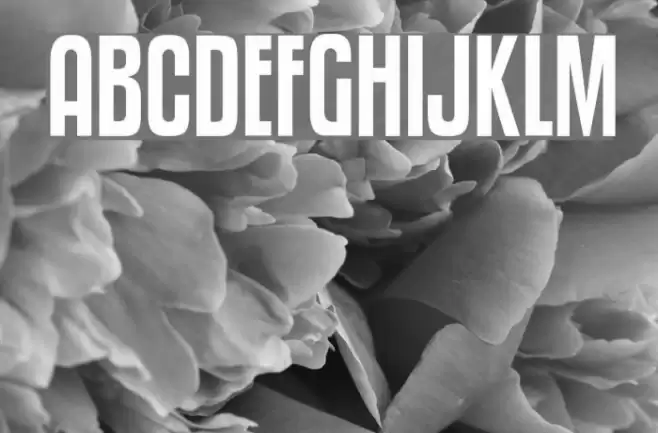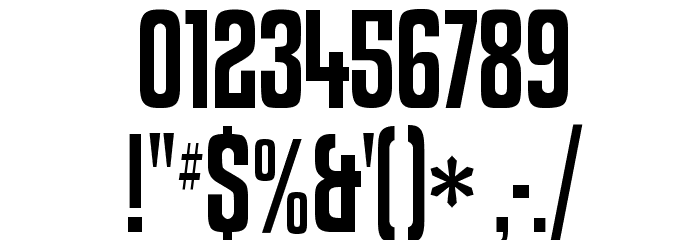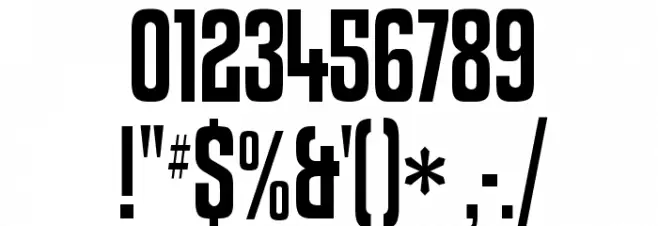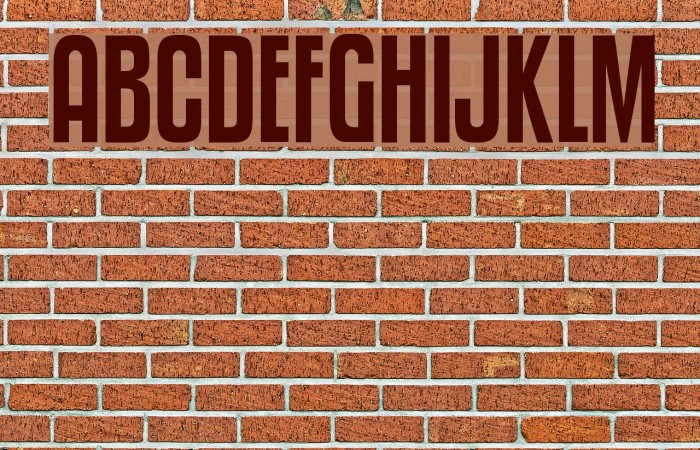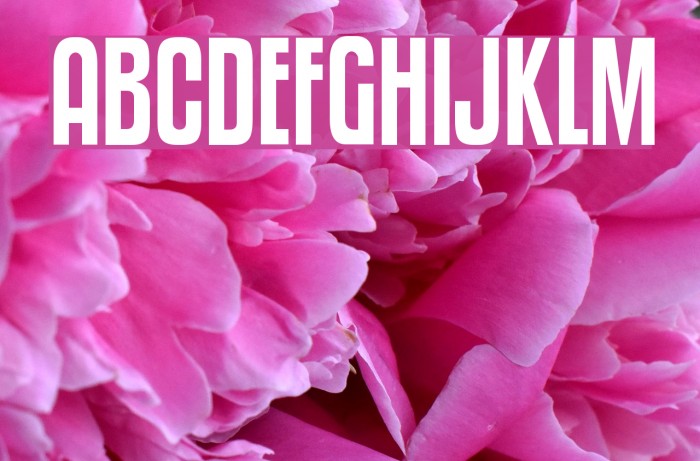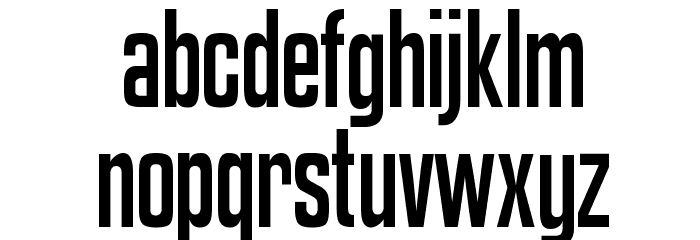
Kenyan Coffee Font
Kenyan Coffee Description
This font features a bold and impactful design with tall, narrow characters that create a strong visual presence. The uppercase letters are particularly striking, with a uniform height and consistent stroke width that convey a sense of authority and modernity. The lowercase letters maintain the same narrow structure, ensuring readability while preserving the font's distinctive style. Numbers and special characters are designed with the same boldness, making them stand out effectively. The overall look is clean and professional, suitable for a variety of design applications.
A bold, narrow font with a modern and authoritative style from Formal fonts.
- Proposed Projects: Ideal for headlines, posters, branding, and advertising where a strong visual impact is needed.